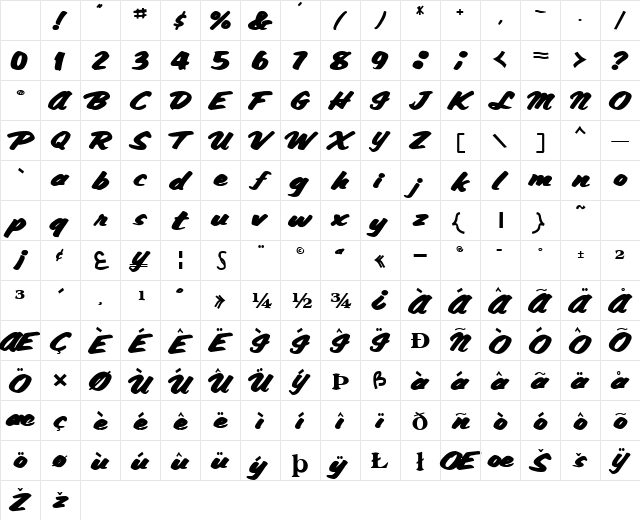
Complete SmoothFontNew75 Bold glyph index. Displaying only characters natively supported by SmoothFontNew75 Bold font.
SmoothFontNew75 is a composed and adaptable typeface that performs quietly and consistently across a wide range of design contexts. Its bold stroke weight gives it real presence on the page.